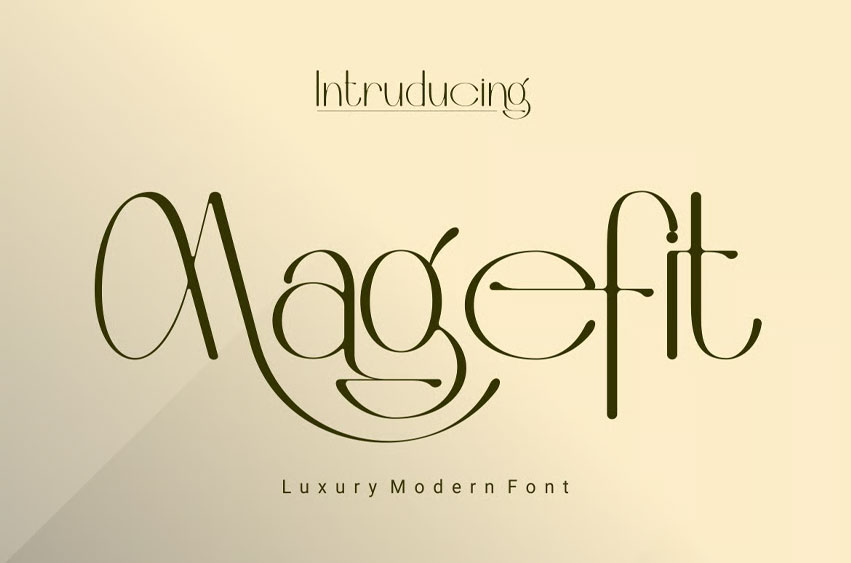
Magefit Font Luxury Modern Font is a unique font. It can make it easier to convey the message in your design.
Use for awesome display, labeling, clothing, movie scenes, posters, movie titles, gigs, album covers, logos, and much more.